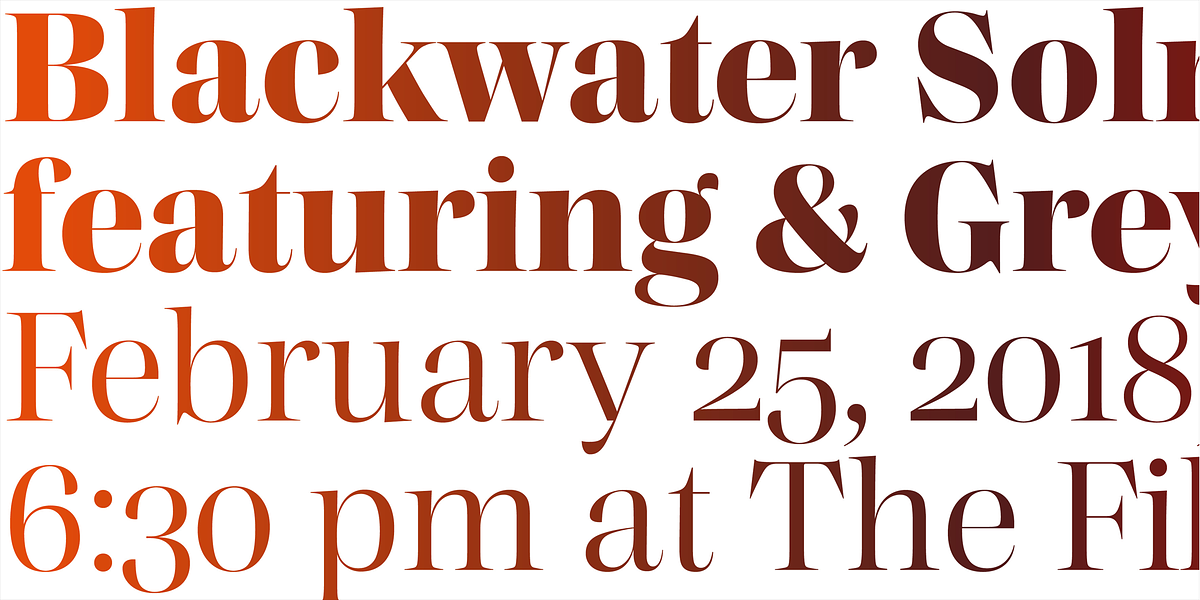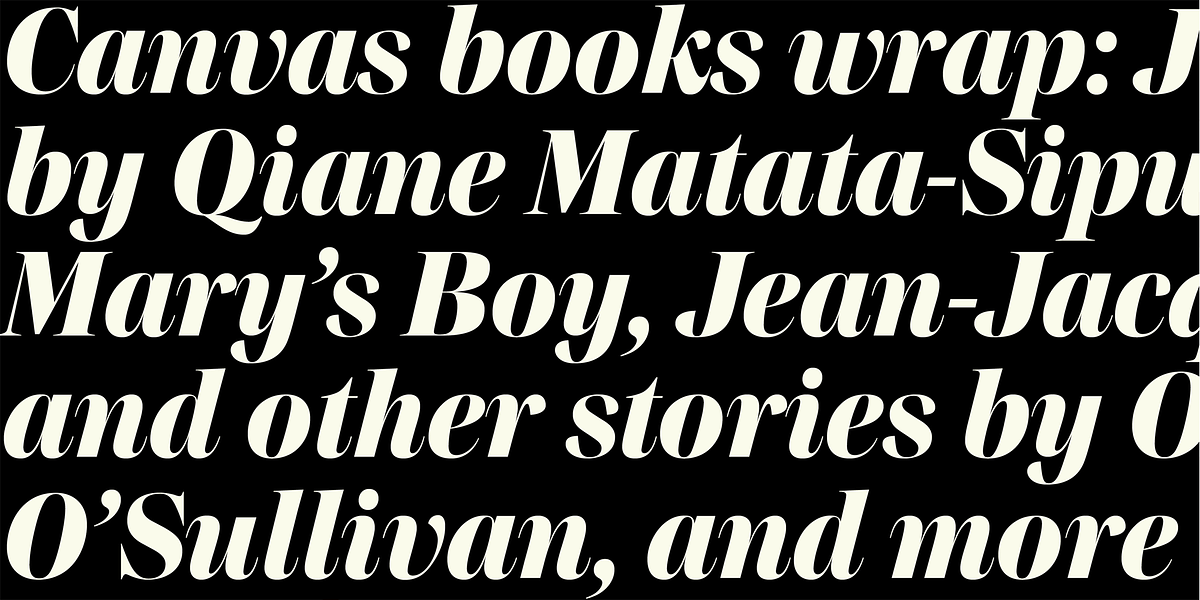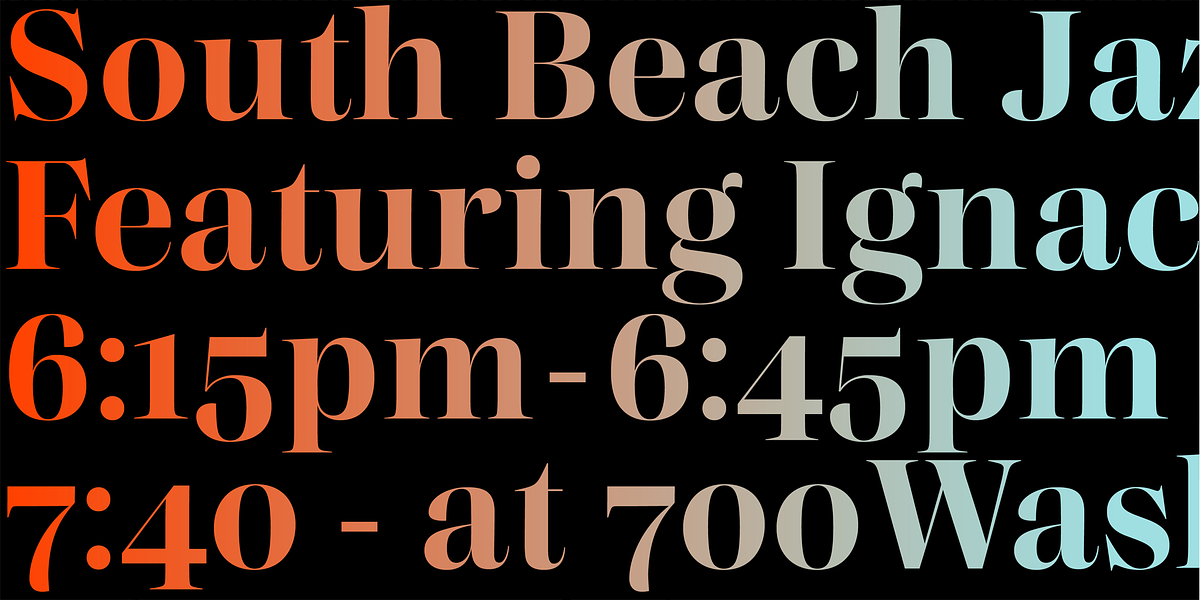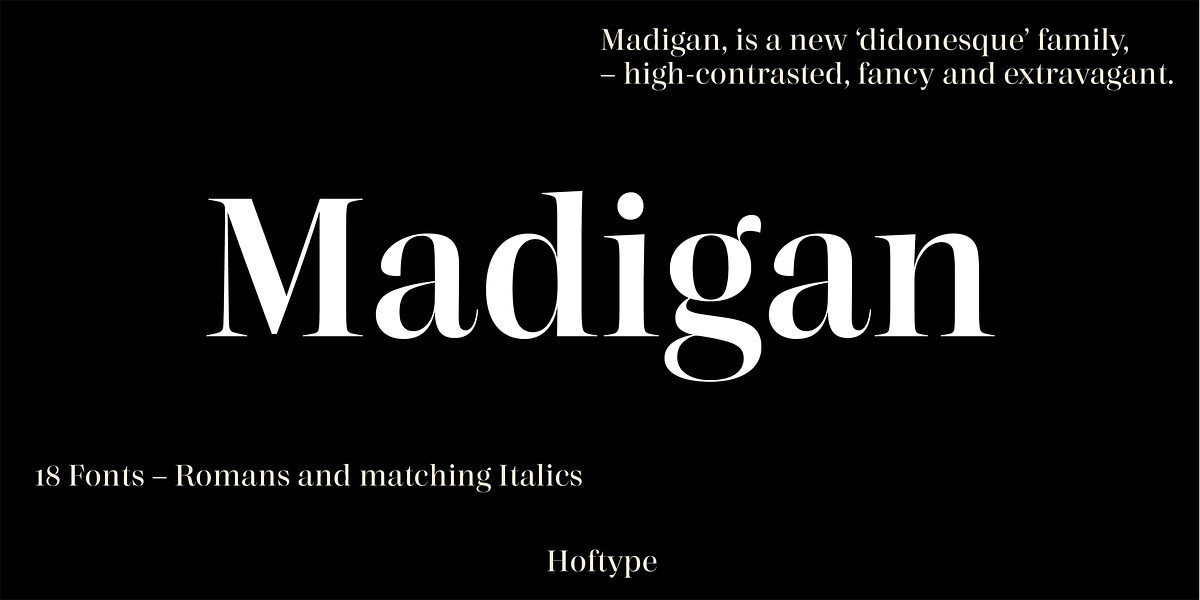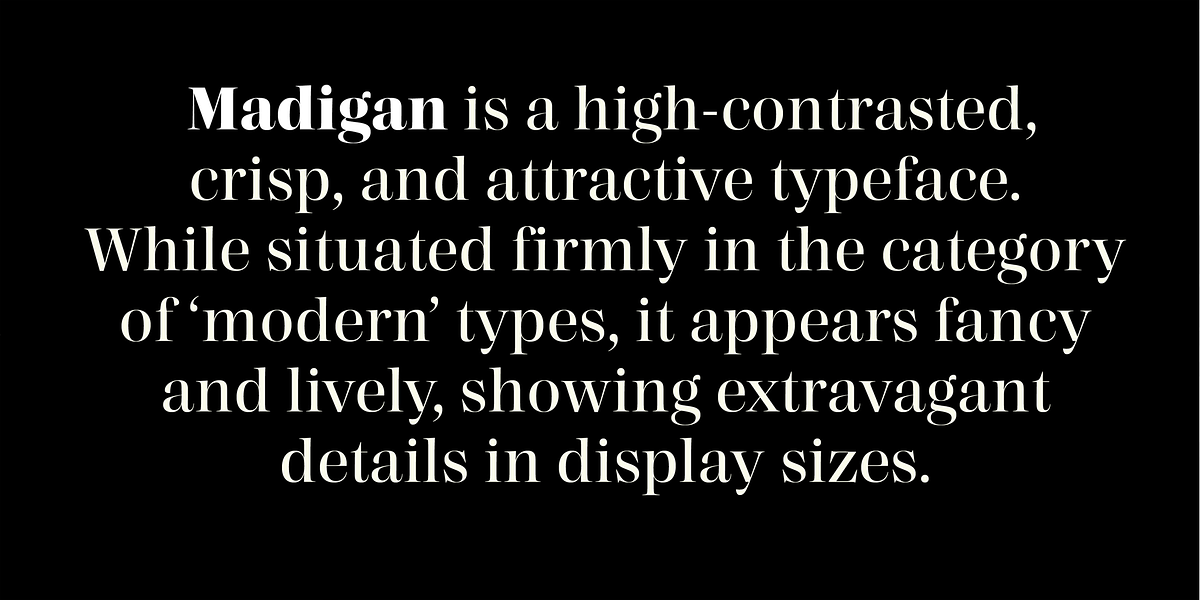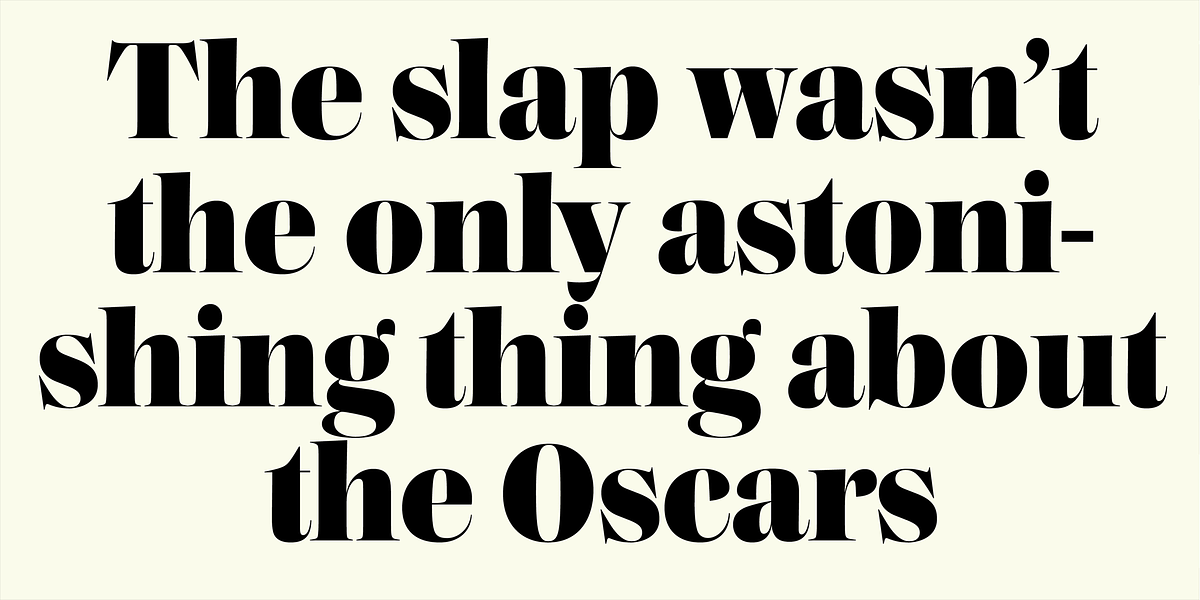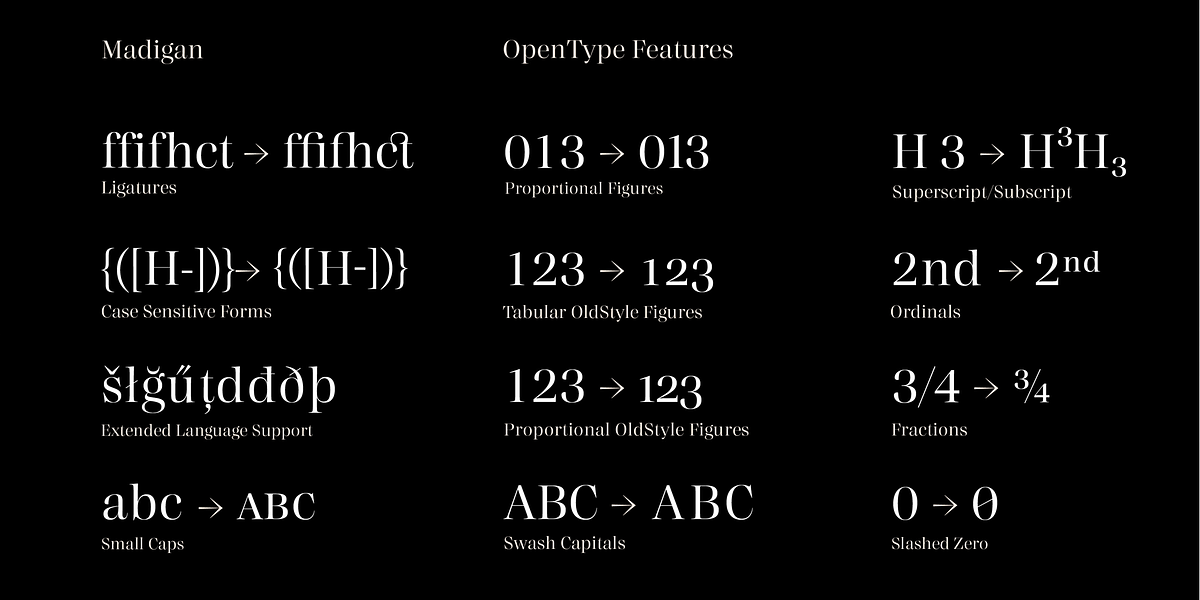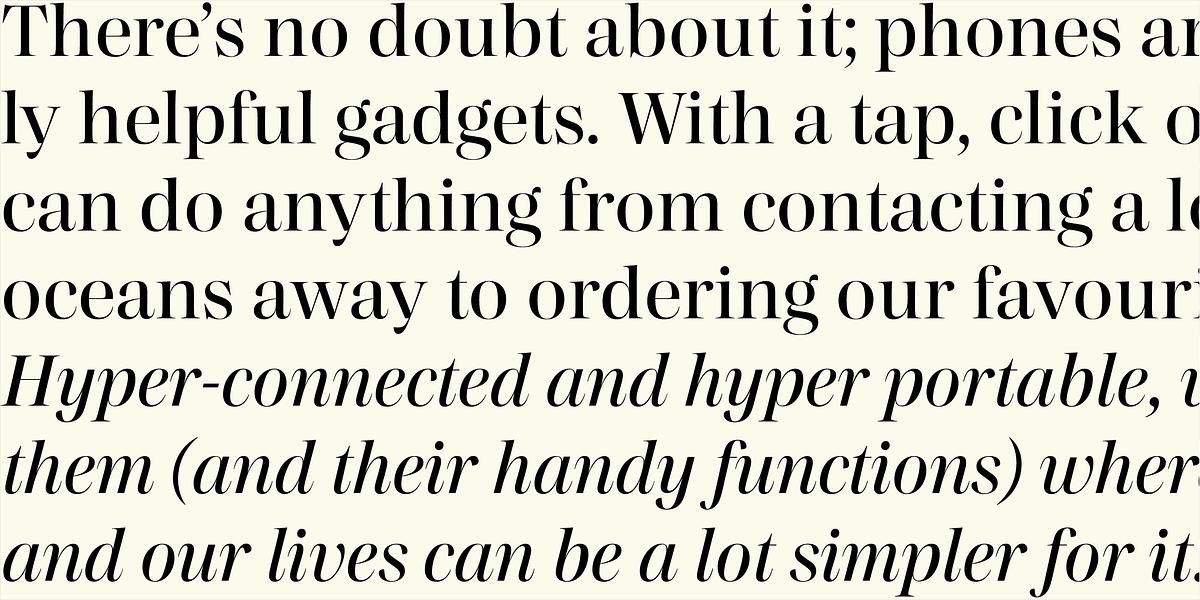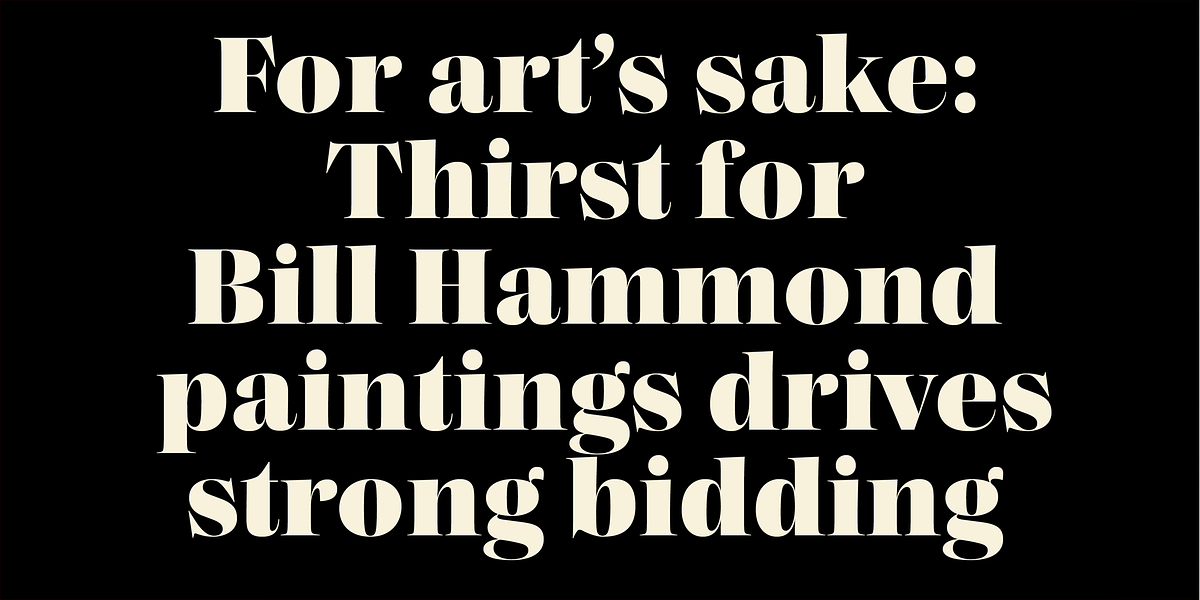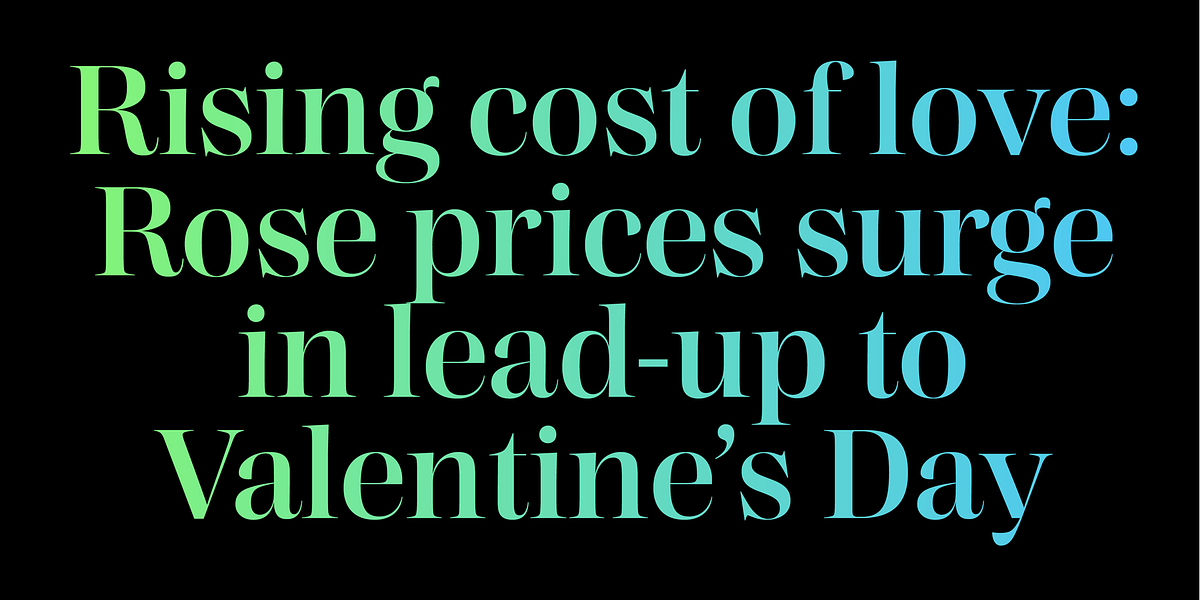
Madigan
Madigan is a modern serif typeface characterized by its high contrast and crisp details. It's particularly well-suited for display purposes like posters and titling due to its attractive and eye-catching appearance. The font includes various features like small caps, ligatures, and alternate characters, offering versatility in typographic applications.